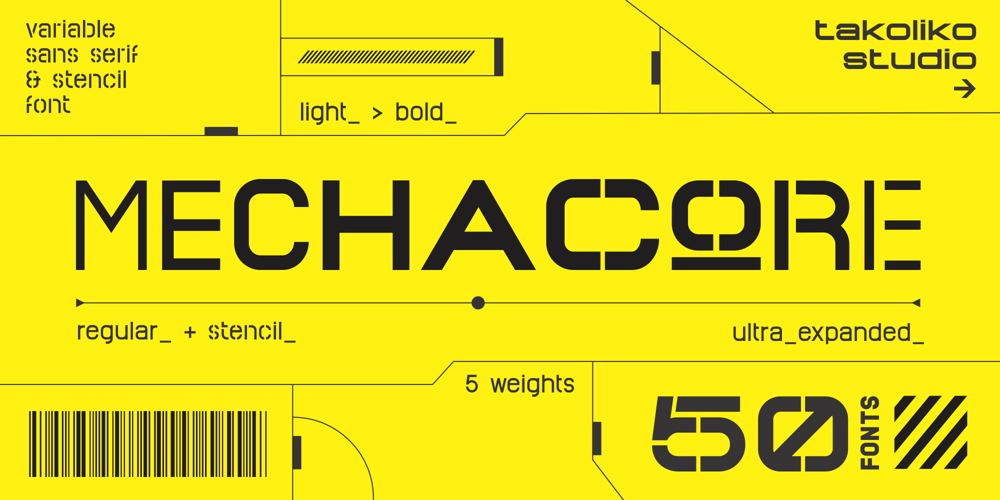
Mechacore Font Family was designed by Deni Hidayat and published by takoliko. Mechacore contains 50 styles and family package options. Mechacore is a variable modern sans serif display typeface designed by Takoliko Studio. It comes with regular and stencil style, it have 5 weights and expanded width. Its inspired by a mecha cyberpunk sub genre. the modern and unique characteristics makes it suitable for attention grabbing design projects such as a engineering, technology, cyber media, army stuff, headlines, posters, social media displays and editorials.